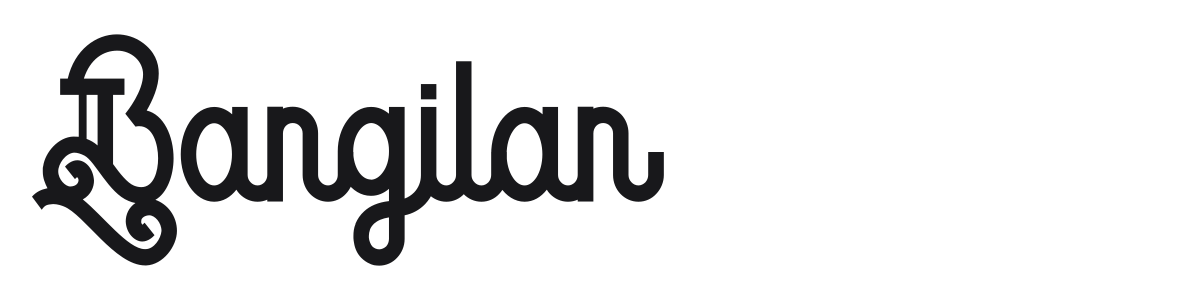
Bangilan
Bangilan is a bold connected casual script with a smooth, unbroken flow and rounded monoline strokes. It draws on mid-century retro lettering traditions, the kind found on diners, candy packaging, and vintage signage. The weight and curves give it immediate presence at headline sizes without feeling aggressive.